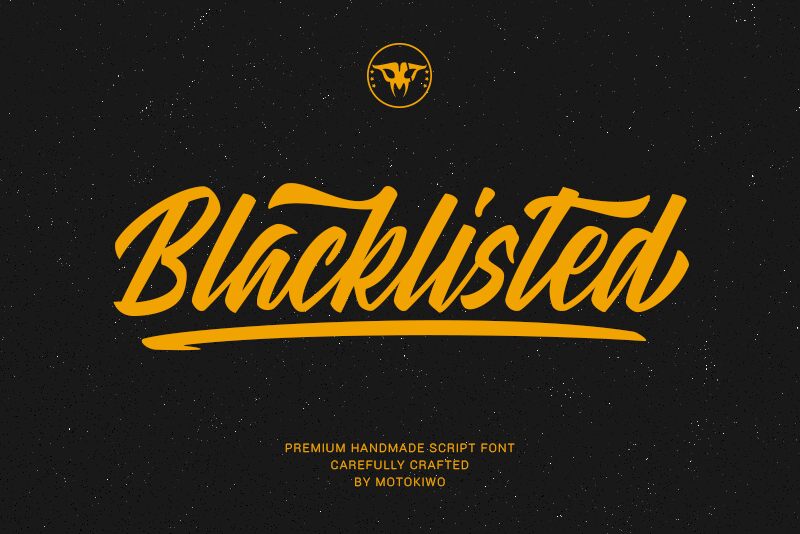
Blacklisted, a captivating creation by Anton Cahyono, is a remarkable smooth brush font. With its semi-bold weight and condensed width, this versatile typeface is perfect for a wide range of projects. Its sleek and stylish design makes it an excellent choice for modern branding, eye-catching advertisements, and edgy editorial layouts. Whether you're designing a fashion magazine, creating impactful social media graphics, or crafting an unforgettable logo, Blacklisted will add a touch of sophistication and uniqueness to your work. Let this font elevate your designs and leave a lasting impression on your audience.
Blacklisted